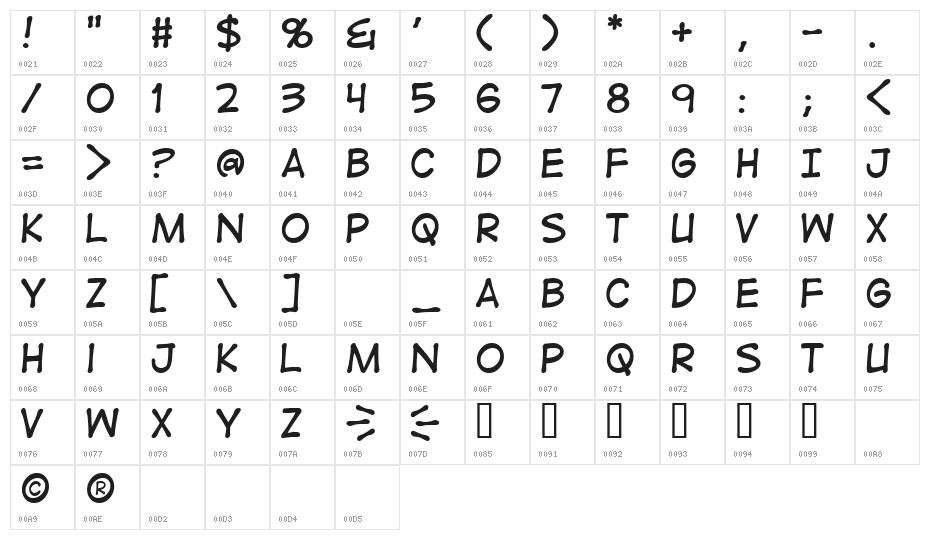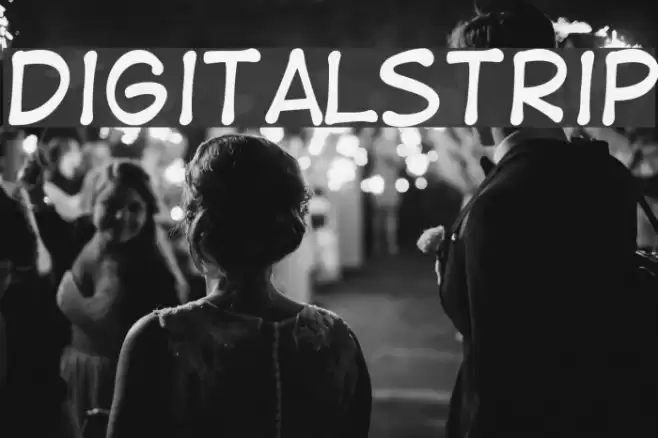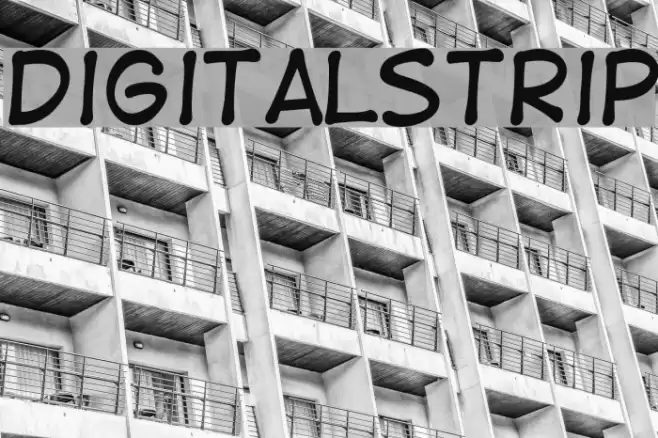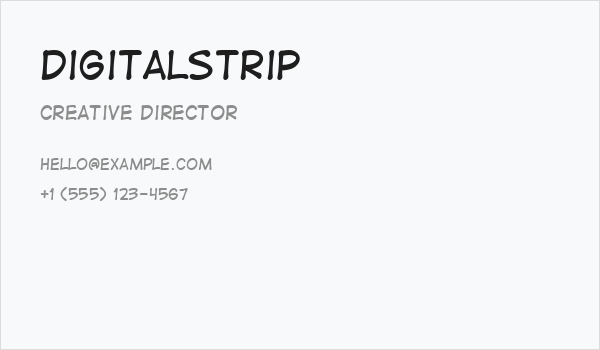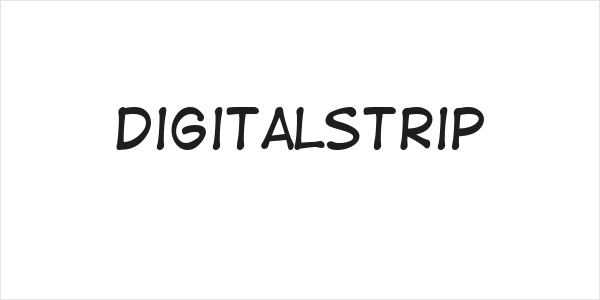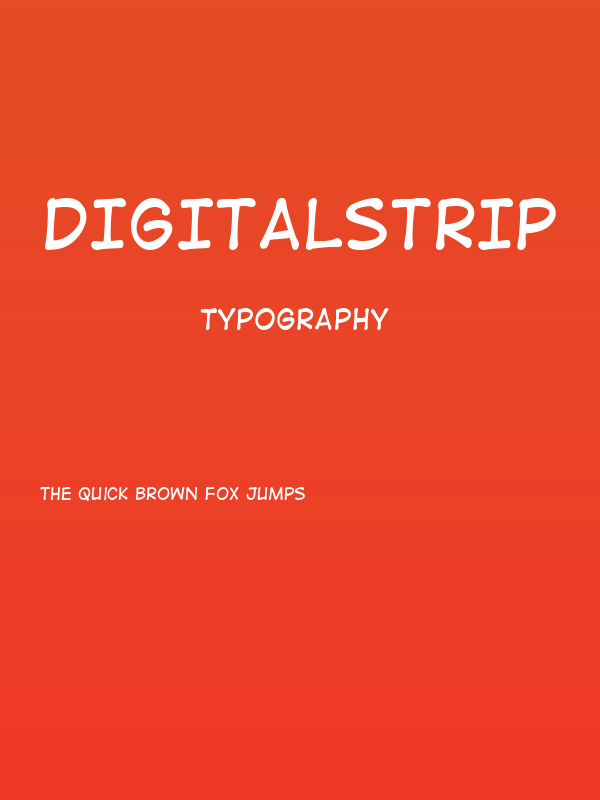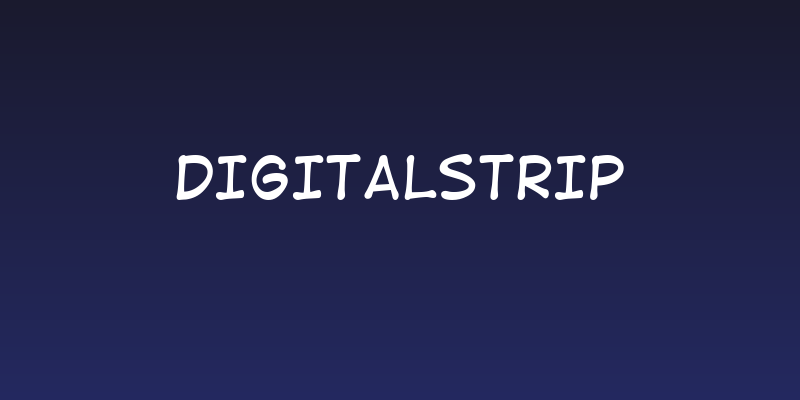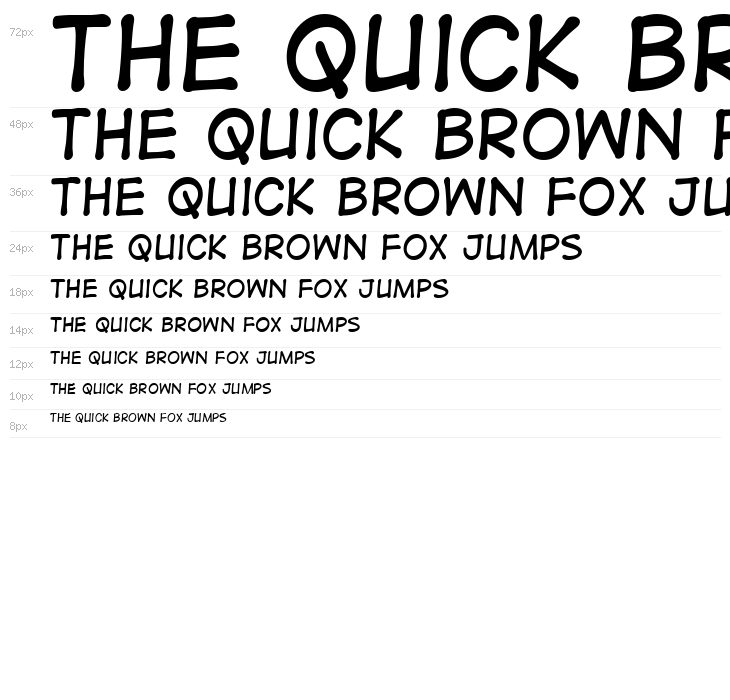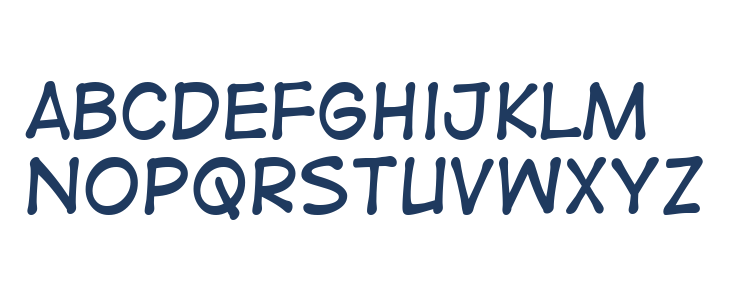
DigitalStrip Font
DigitalStrip Description
This playful and bold font features a handwritten style with a casual and friendly appearance. The characters are rounded and slightly irregular, giving it a whimsical and approachable feel. The uppercase and lowercase letters maintain a consistent flow, while the numerals and special characters complement the overall style. Its informal nature makes it suitable for designs that aim to convey warmth and creativity. The font's strokes are moderately thick, ensuring good readability while retaining its distinctive character.
| Proposed Projects | Ideal for children's books, comic strips, playful branding, and informal invitations. |